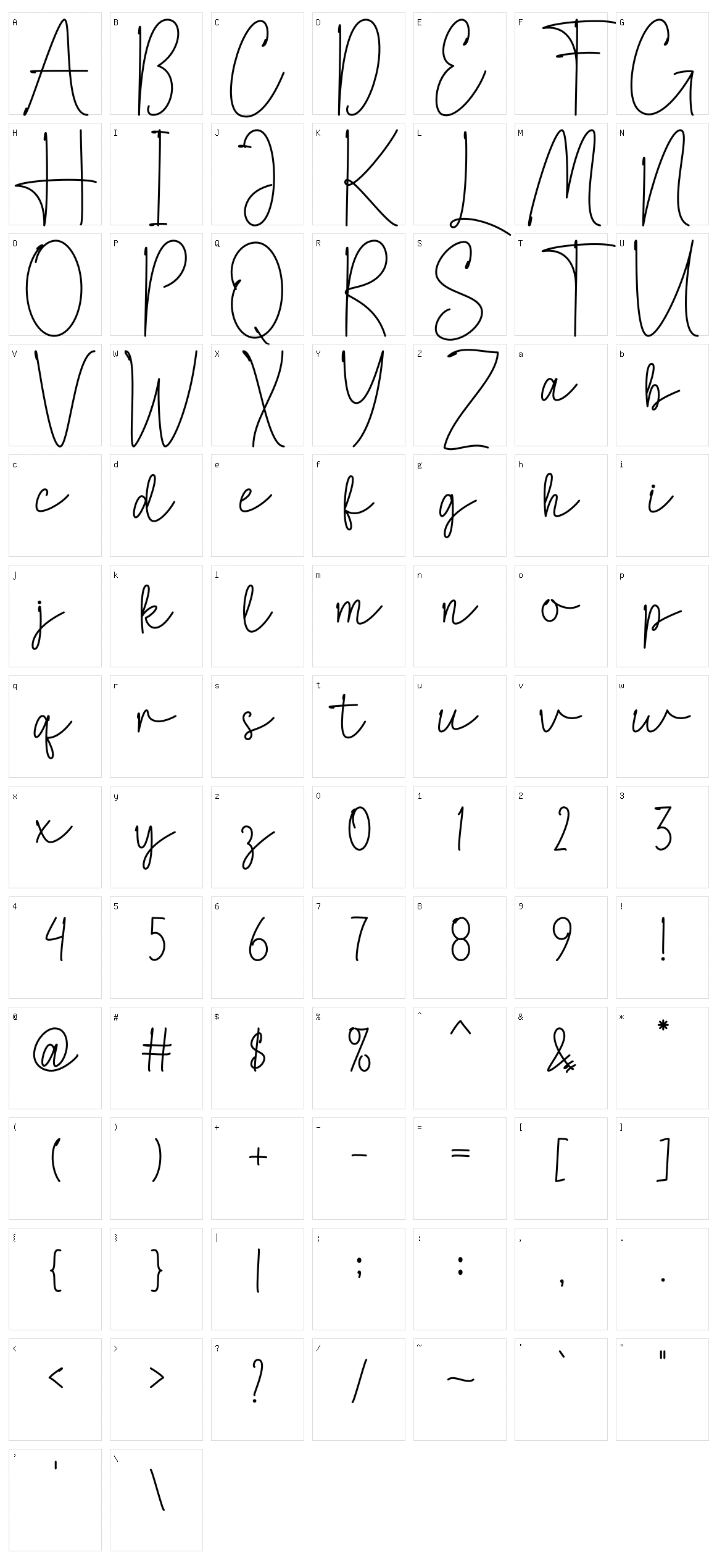
The free font Love Signature is carefully designed by Wahyu Studio, showcasing a thoughtful balance of creativity and usability and falls under the Script font style. When you download the ZIP file, it contains only 253.56 KB of font files, making it lightweight and quick to download. Please review the license details below to understand permitted usage and distribution rights. If license information is not available, we recommend using this font for personal projects only or contacting the author directly for commercial usage permissions.